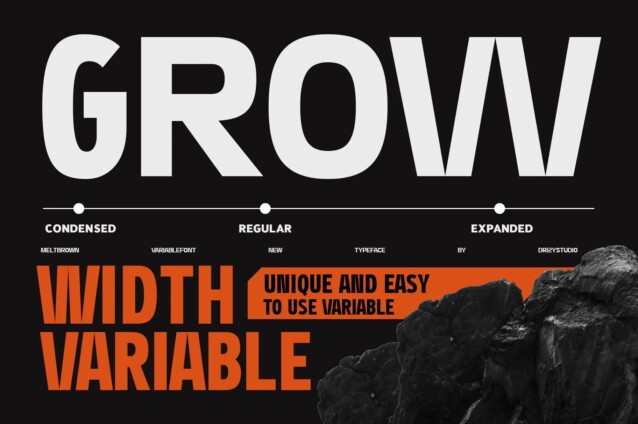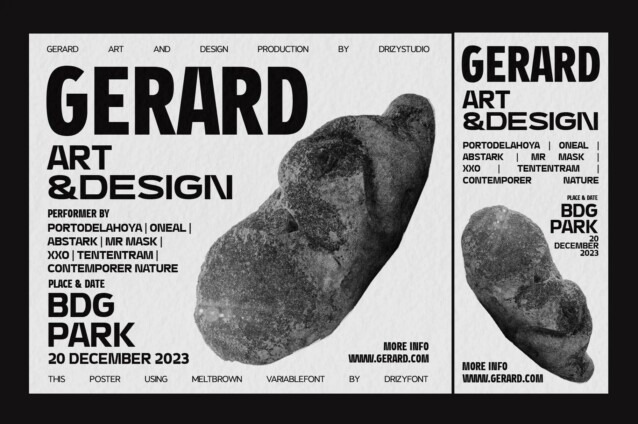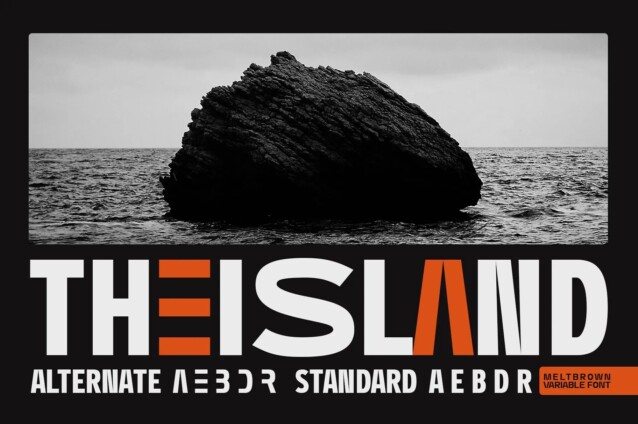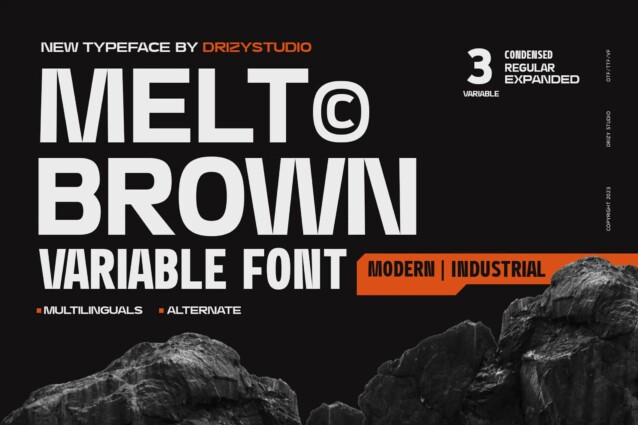
Meltbrown Font
Meltbrown Font is a bold sans serif font inspired by the nostalgia and aesthetics of the early 90s. This font is a visual symphony of clean lines, geometric precision, and a touch of gritty urban charm, making it a versatile choice for a wide range of design projects. This variable font have a Condensed, Regular, and Expanded. Offers a comprehensive toolkit for designers seeking a versatile typographic solution that embodies the spirit of the modern industrial landscape.